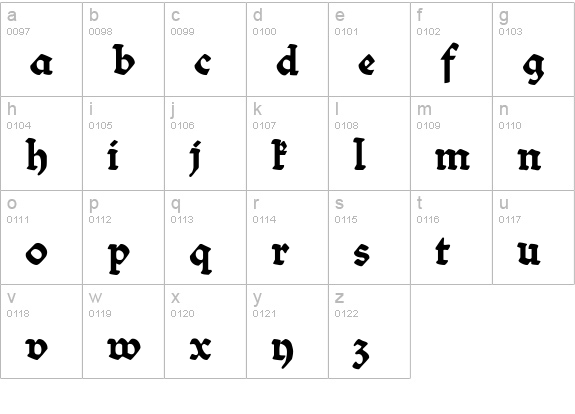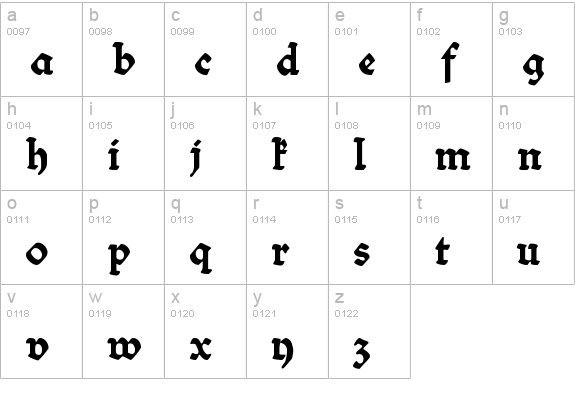
Bibelschrift font is a stunning typeface that beautifully captures the essence of classic calligraphy. With its elegant curves and sophisticated strokes, this font exudes a timeless beauty that is sure to enhance any design project. Designed with meticulous attention to detail, Bibelschrift font is perfect for creating invitations, wedding stationary, logos, branding materials, and more. Its graceful and flowing characters make it ideal for adding a touch of elegance to any project. But what truly sets Bibelschrift font apart is that it is completely free. Yes, you heard it right – this outstanding font is freely available to download at FontsMarket.com. Whether you are a professional designer or a hobbyist, you can now access this remarkable font without spending a dime. With its wide range of weights and styles, Bibelschrift font offers versatility and flexibility. From thin and delicate to bold and impactful, this font has it all. Its extensive character set includes uppercase and lowercase letters, numerals, punctuation marks, and special characters, ensuring that you have everything you need to bring your creative ideas to life. Not only does Bibelschrift font look amazing on screen, but it also prints beautifully. Its high-quality design ensures that your printed materials will have a professional and polished appearance. So why wait? Download Bibelschrift font for free at FontsMarket.com and start adding a touch of timeless elegance to your design projects today.